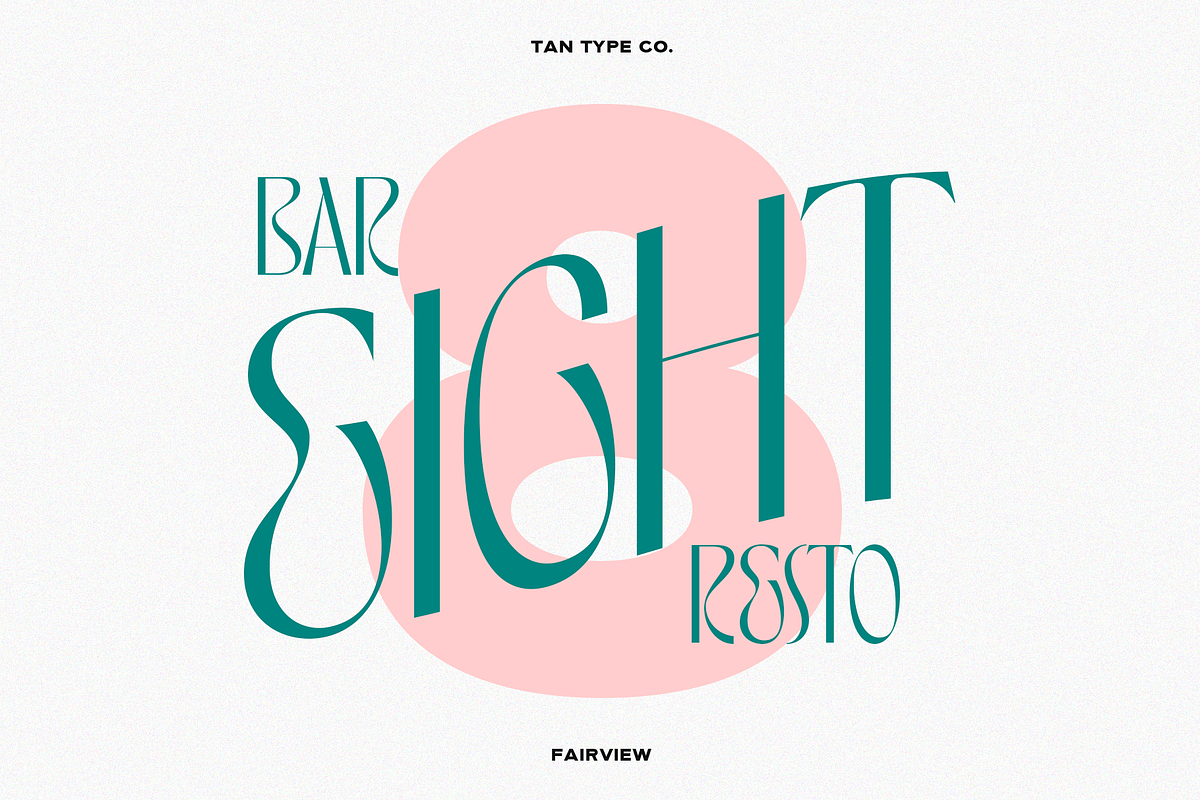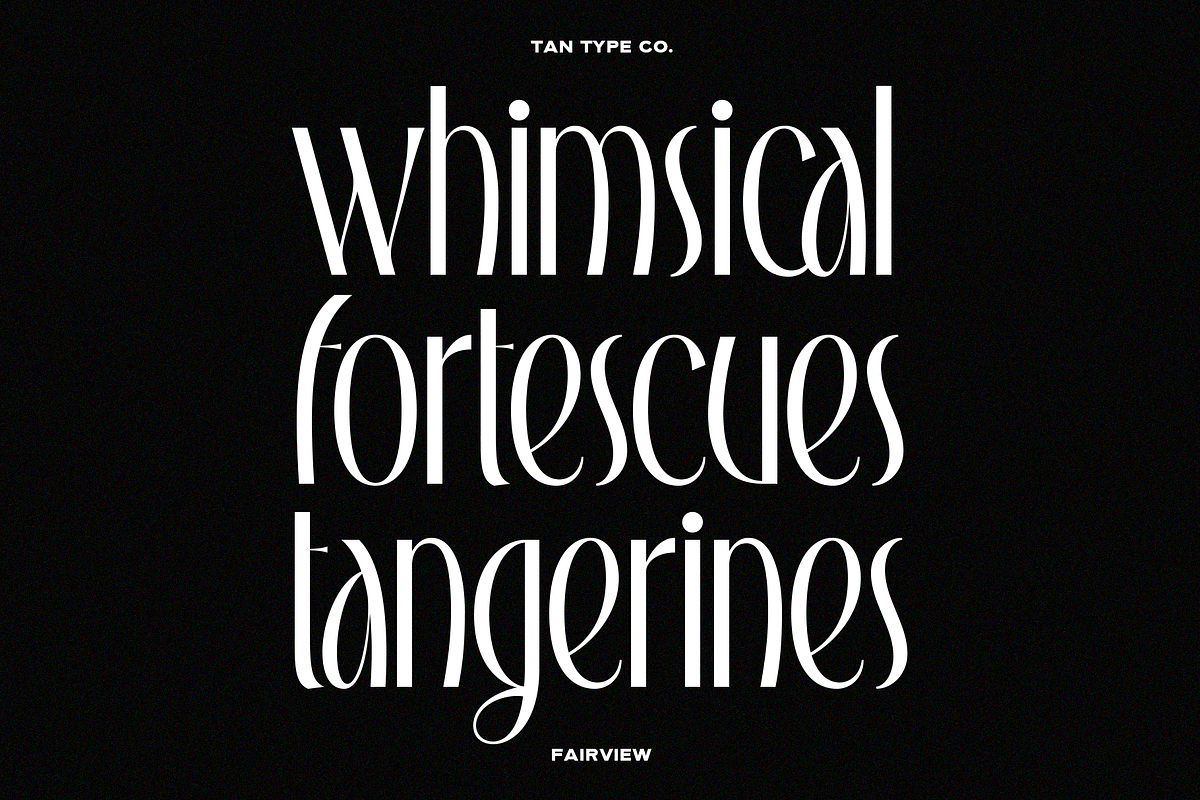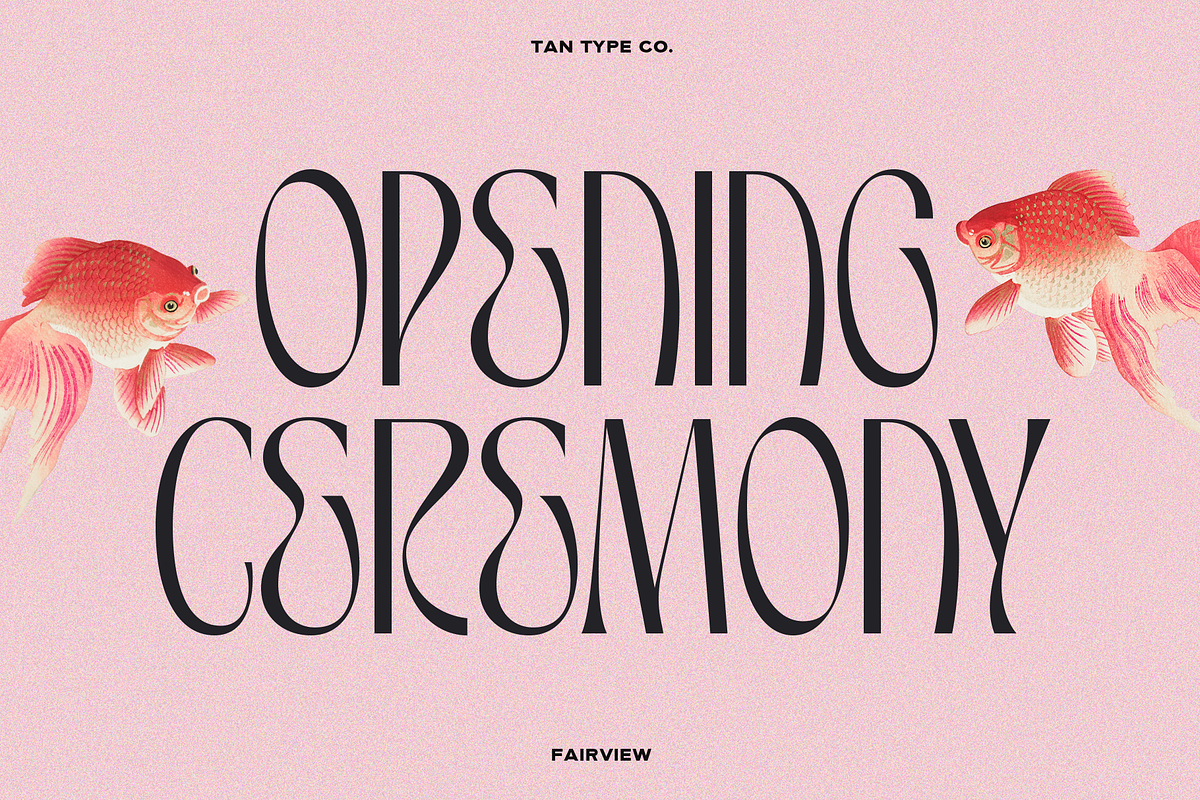
Tan – Fairview Font
Tan - Fairview Font
TAN – FAIRVIEW is an art deco-inspired display typeface. Sleek, thin, and simple with a modern twist. Our typefaces work best in design software.